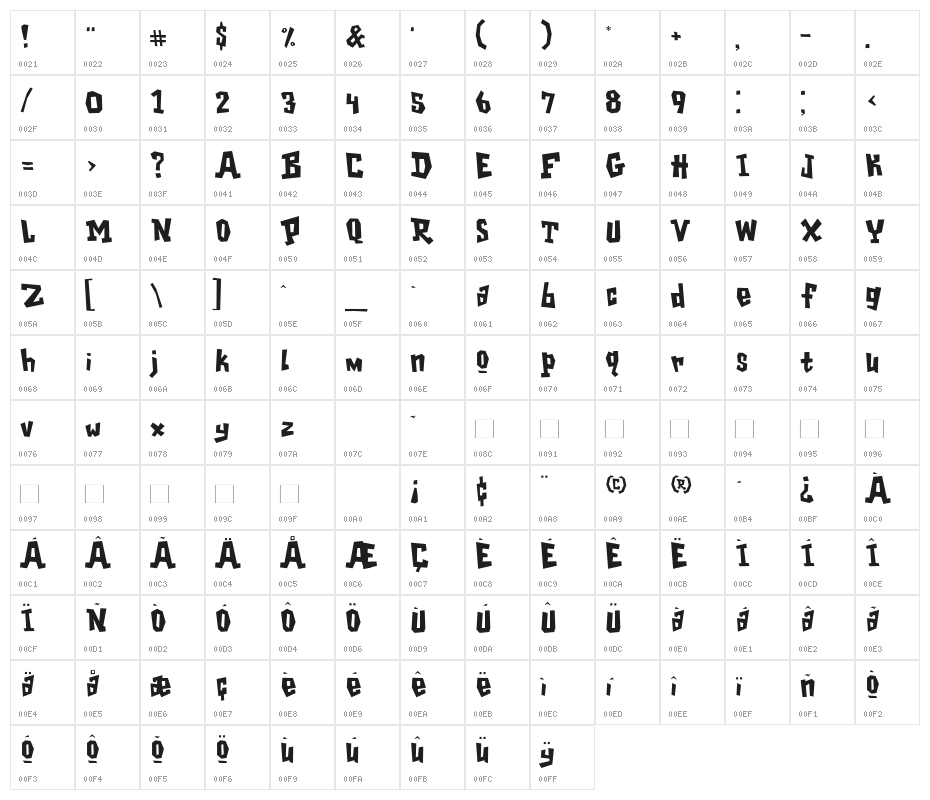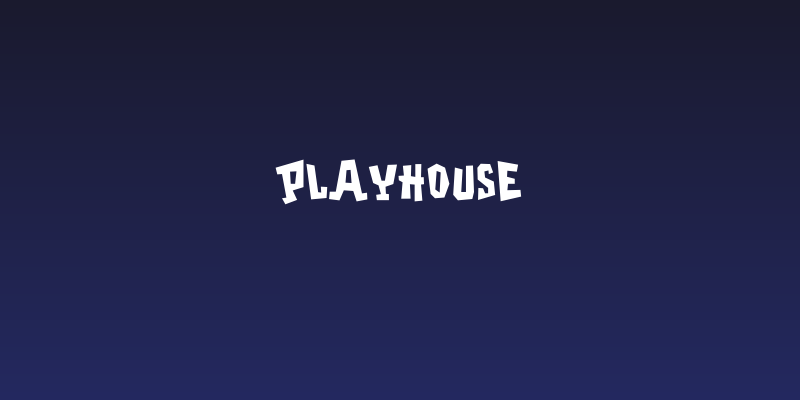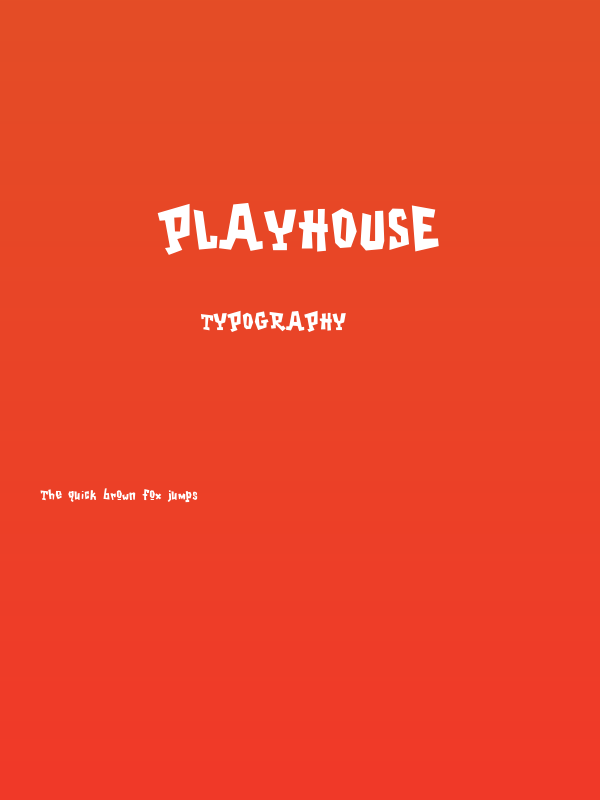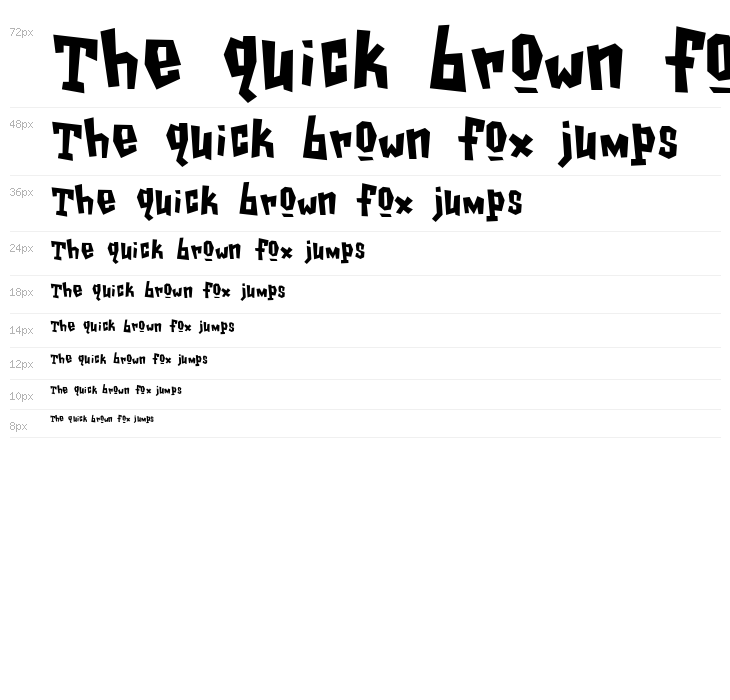
Playhouse Font
Playhouse Description
This font features a playful and bold design with irregular, jagged edges that give it a whimsical and energetic appearance. The uppercase and lowercase letters maintain a consistent style, characterized by their thick, uneven strokes and dynamic shapes. The numbers and special characters follow the same playful aesthetic, making the font suitable for creative and informal contexts. Its unique style captures attention and adds a sense of fun and movement to any design. The font's boldness and distinctiveness make it ideal for projects that require a lively and eye-catching typeface.
| Overall Style | Playful, Energetic, Whimsical |
| Proposed Projects | Ideal for children's book covers, playful posters, party invitations, and creative branding. |